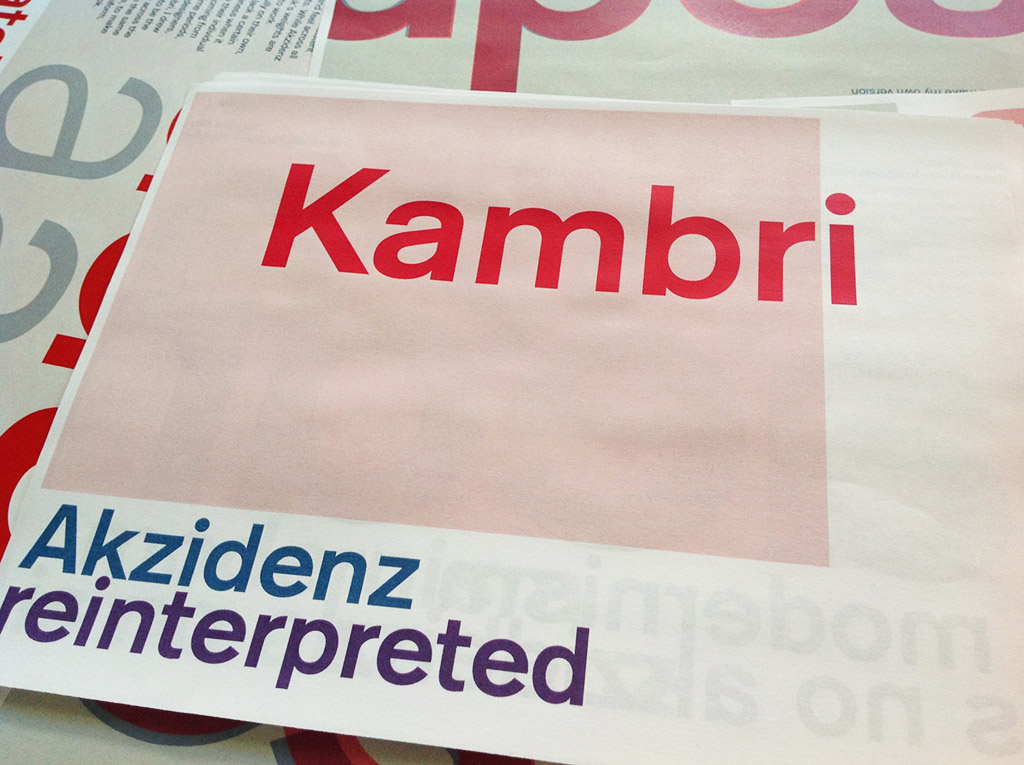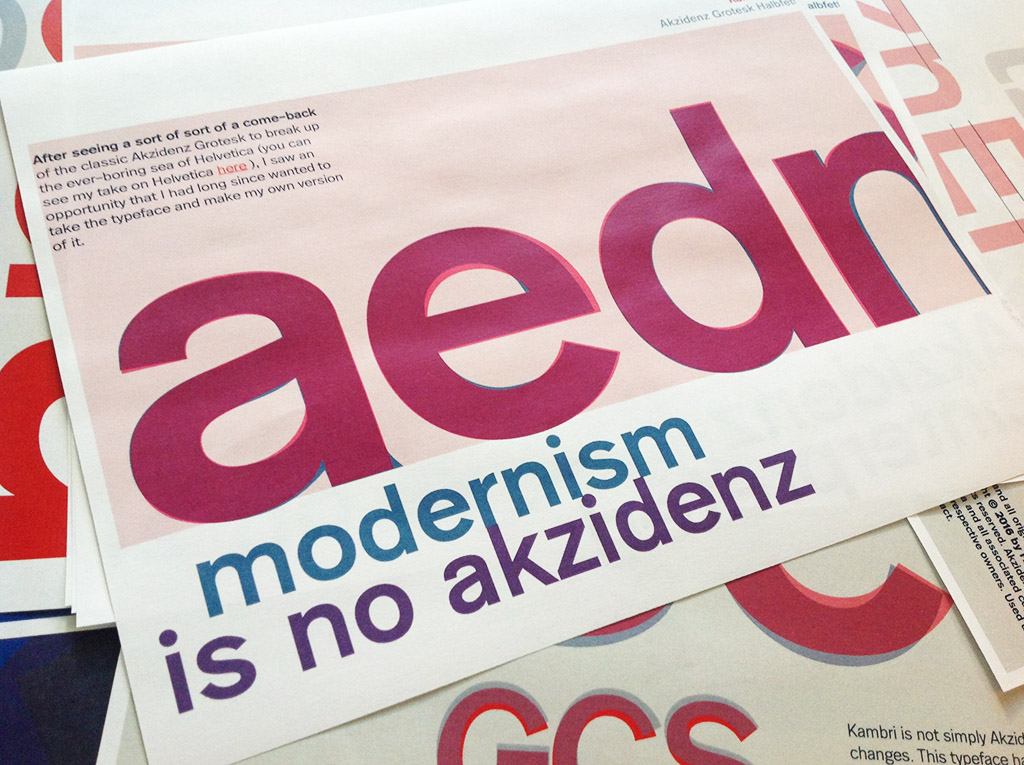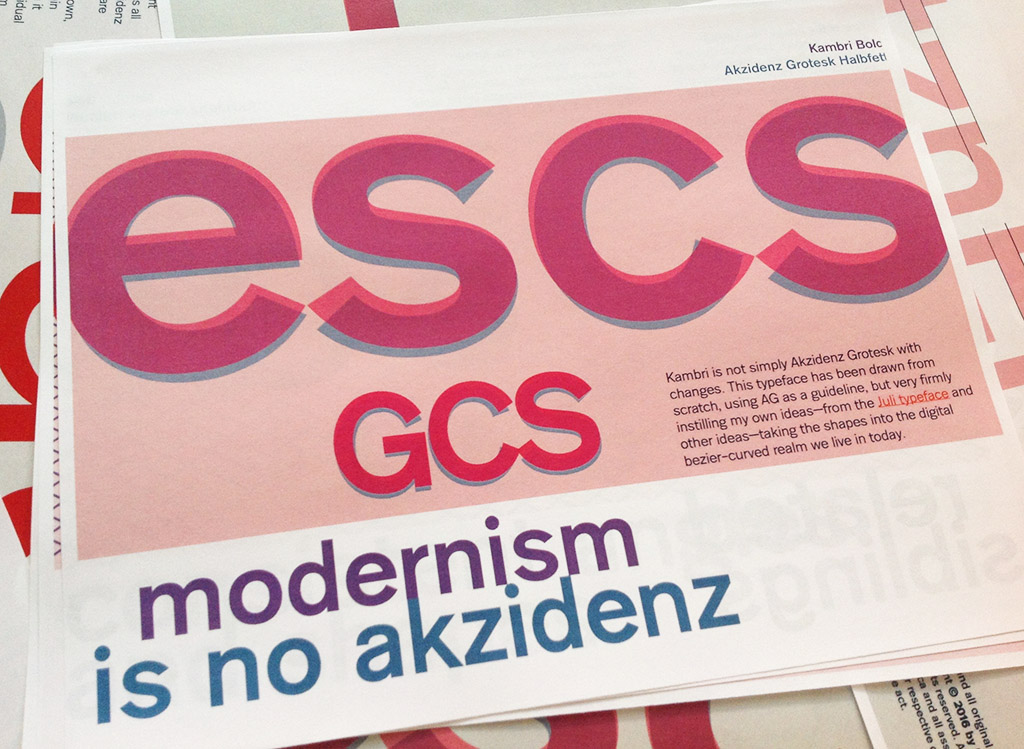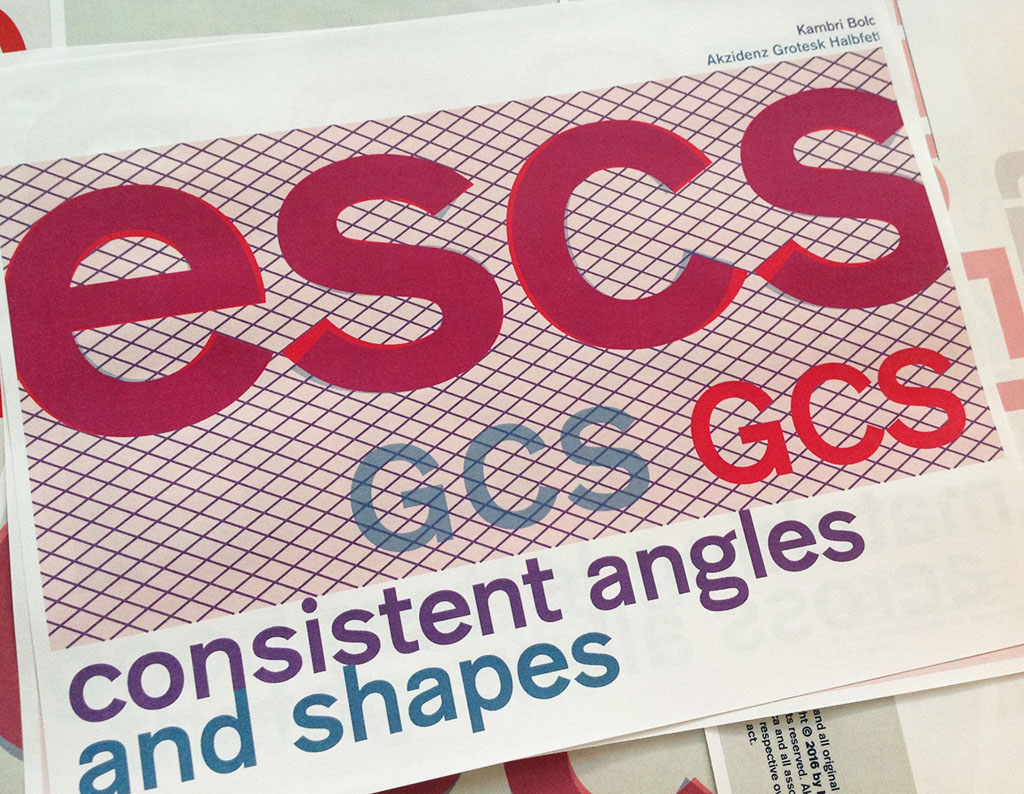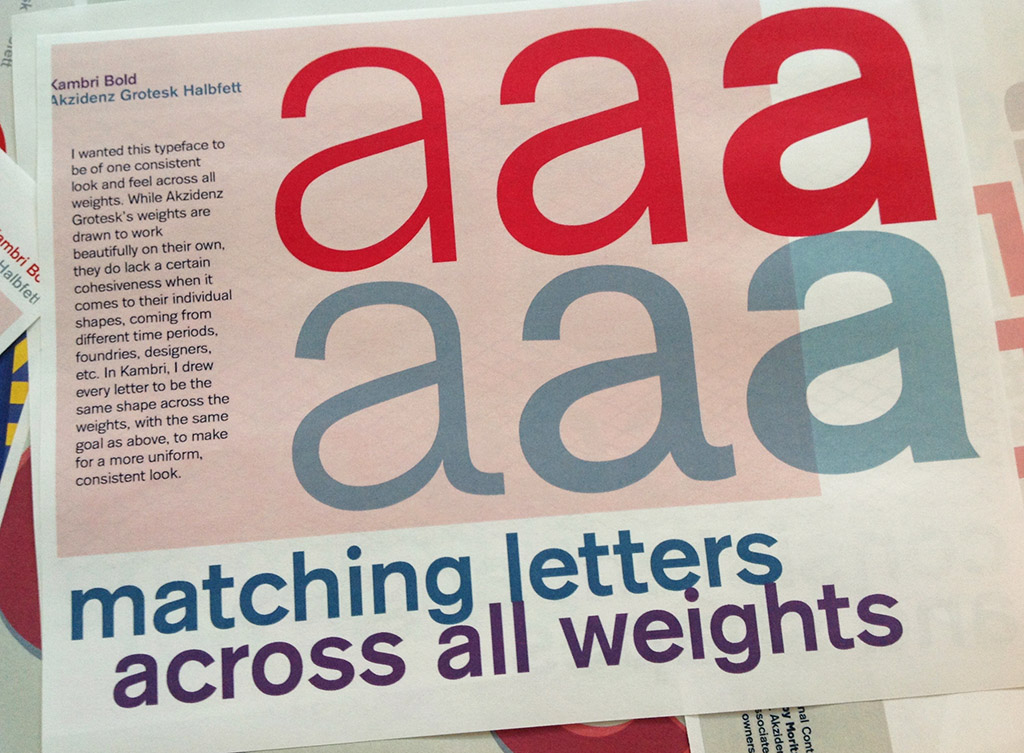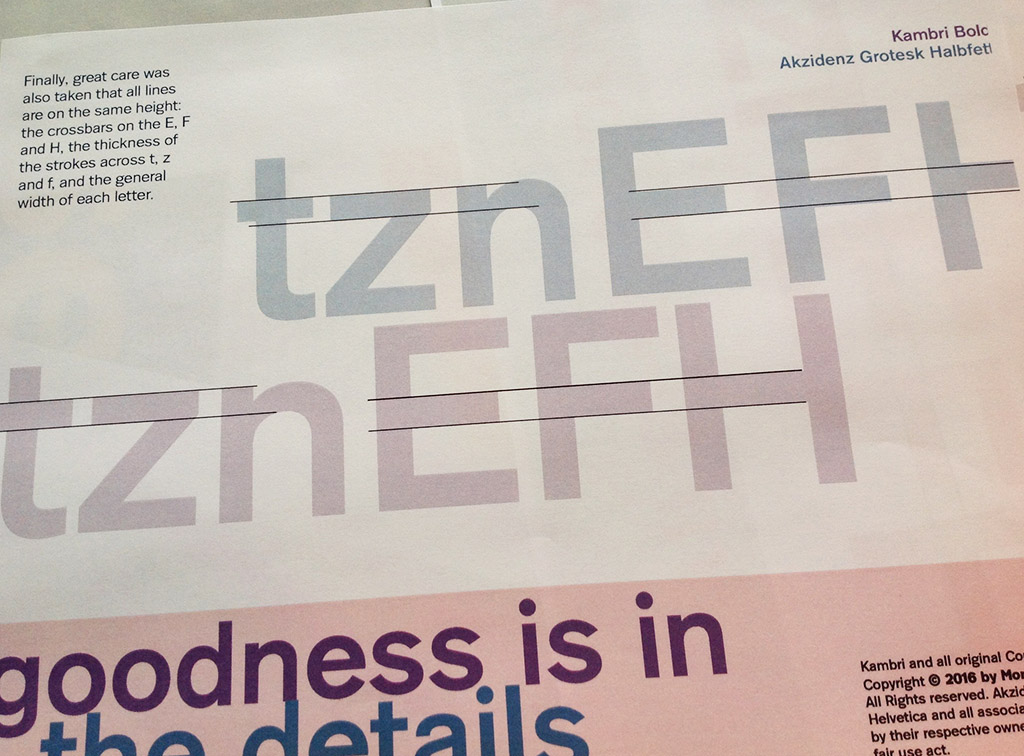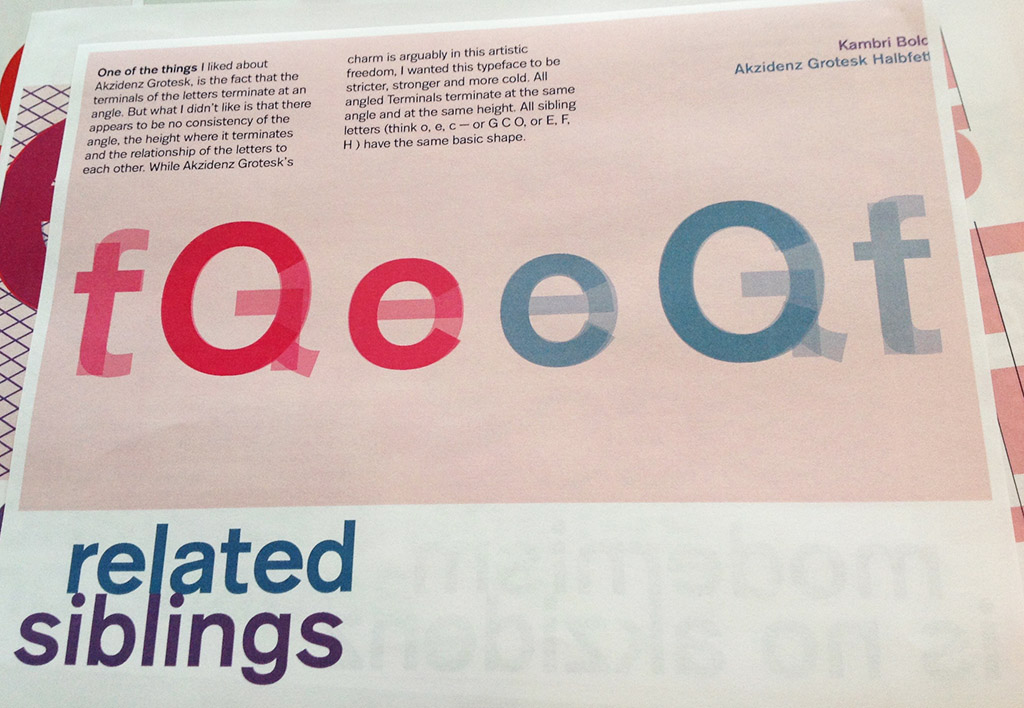
Kambri
Akzidenz reinterpreted. Typeface Created April 2016, last updated 01 September 2021 (read more here)
Goodness is in the Details
Matching Letters across all Weights
Finally, I wanted this typeface to be of one consistent look and feel across all weights. While Akzidenz Grotesk’s weights are drawn to work beautifully on their own, they do lack a certain cohesiveness when it comes to their individual shapes, coming from different time periods, foundries, designers, etc. In Kambri, we drew every letter to be the same shape across the weights, with the same goal as above, to make for a more uniform, consistent look.
Matching Lettershapes across all weights